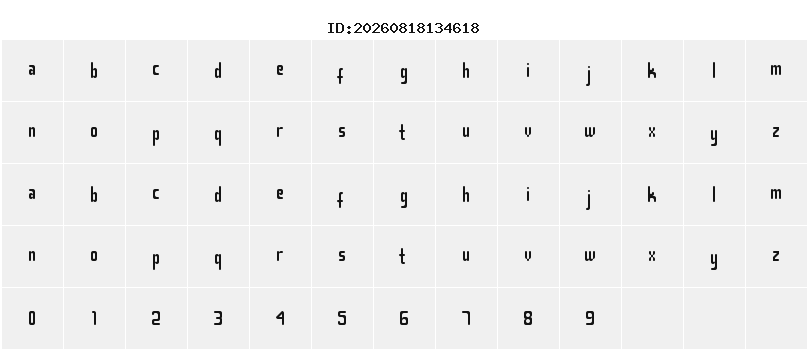
• Font Name: Smasasinema
• Full Font Name: Smasasinema Regular
• Designer: Adien Gunarta
• Description: “Smasasinema” was built with FontStruct
About Smasasinema.ttf
Smasasinema.ttf is a modern, elegant sans-serif font designed for ultimate readability and visual harmony. Perfect for branding, headlines, web design, and print materials.